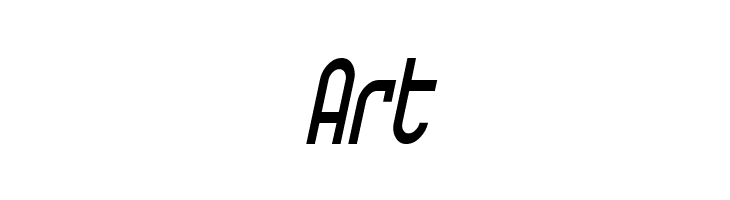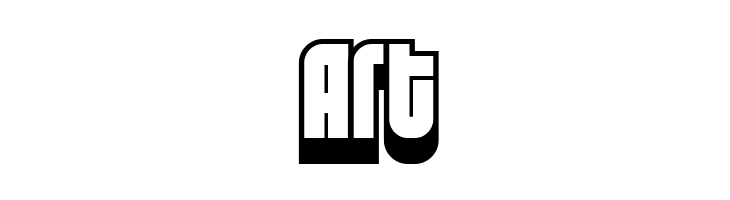
A modern, geometric font with uniform stroke width and balanced design.
A bold, geometric font with a futuristic, retro-inspired design.
A wide, italicized font with a modern and sleek appearance.
A wide, modern font with clean lines and balanced spacing.
A sleek, modern italic font with smooth curves and consistent stroke width.
A modern, clean font with balanced spacing and clear characters.